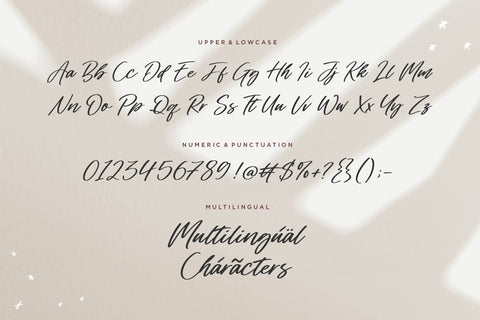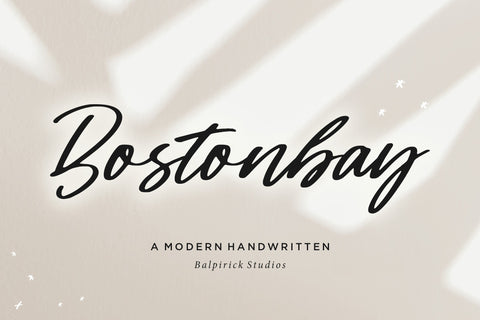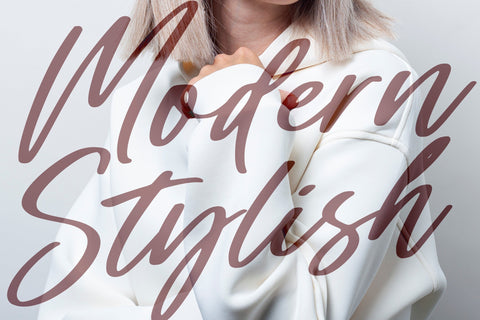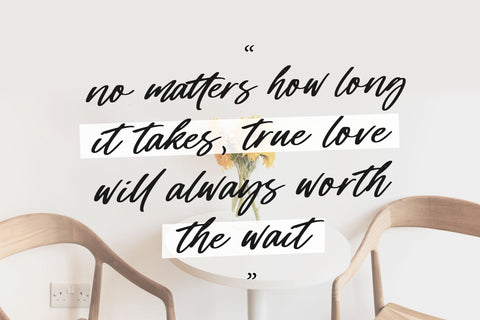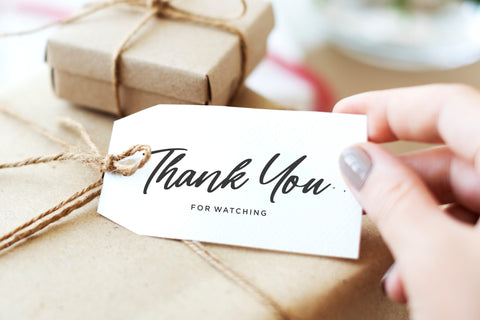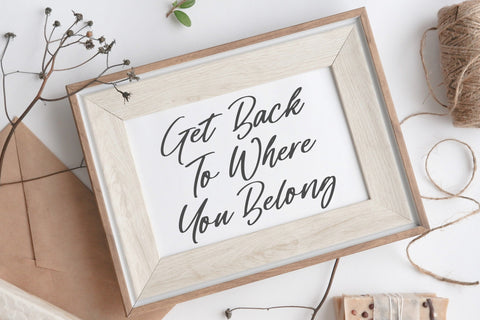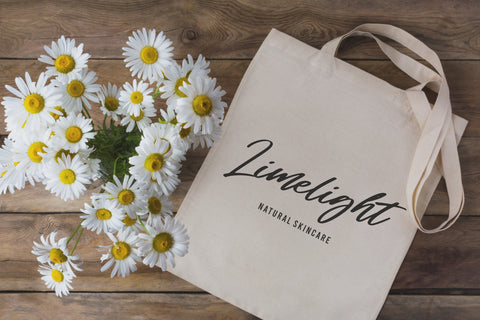
Bostonbay Modern Handwritten Font
Proudly Present, Bostonbay Font.
Bostonbay is a Modern Handwritten Font.
Bostonbay is a unique and elegant handwritten font. It looks beautiful on a variety of designs requiring a personalized style, such as wedding invitations, thank you cards, weddings, greeting cards, logos and so on.